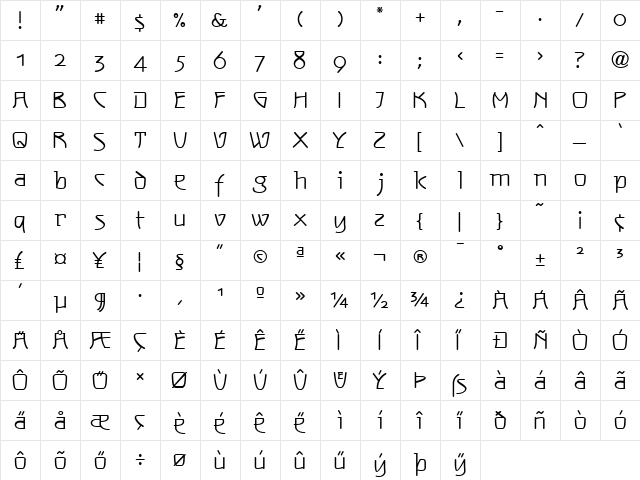
NeuseidlerAntiqua LT Std Rg Regular
| Foundry | Linotype Library GmbH |
| Designer | Richard Yeend |
Design Context for NeuseidlerAntiqua LT Std Rg Typeface
NeuseidlerAntiqua LT Std Rg is a composed and adaptable typeface that performs quietly and consistently across a wide range of design contexts. Its slender proportions lend an understated elegance to any composition.